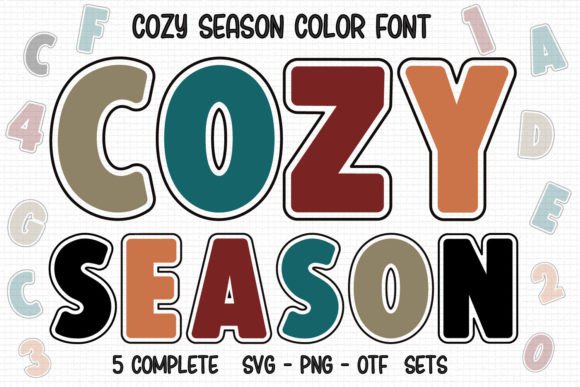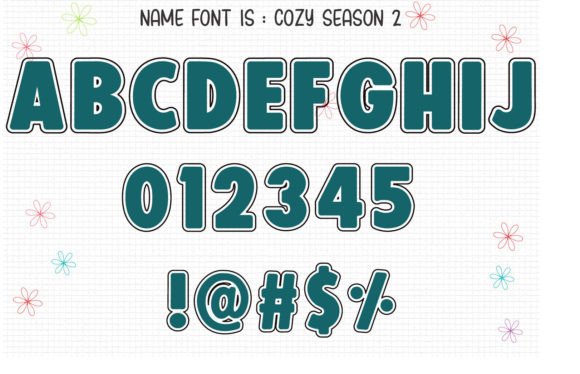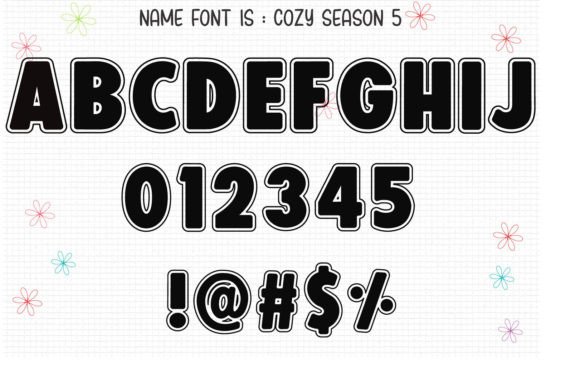
Cozy Season Font
Cozy Season is an incredibly cute, and assertive Color font. Add it to each of your party invitations, gatherings, or pretty much any design that requires a touch of youth and joy.